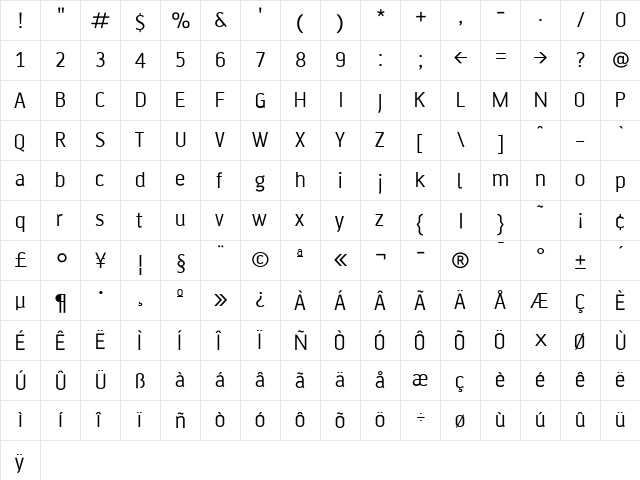
AFBattersea Regular
| Foundry | Henrik Kubel, |
Design Context for AFBattersea Typeface
AFBattersea takes a measured approach to typography — its balanced proportions and neutral character make it a reliable workhorse for both digital and print work.